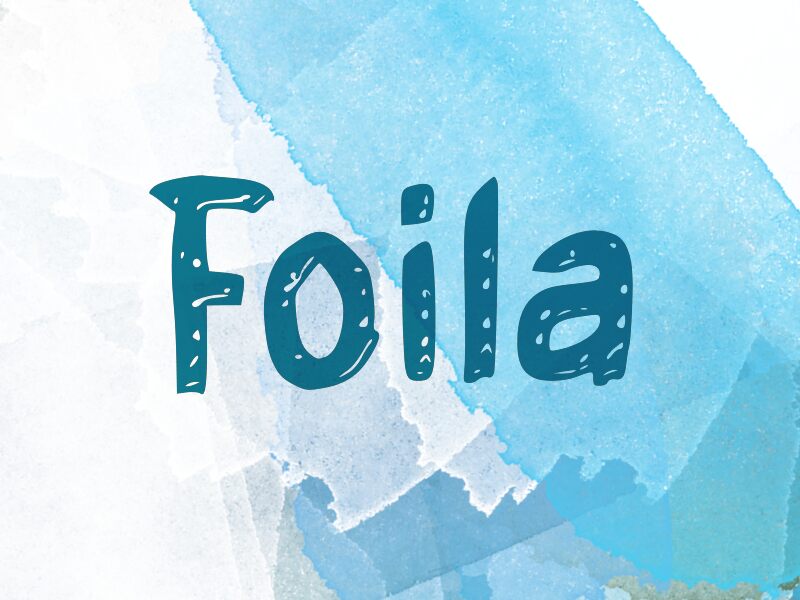
Foila
Foila, designed by wep, is a display font that exudes playfulness and creativity. Its handcrafted aesthetic is characterized by irregular, whimsical shapes and the illusion of ink splatters that evoke a sense of artistic spontaneity. This quirky font stands out with its bold strokes and distinctive character forms that seem to dance on the page, adding a touch of personality to any project.
Ideal for eye-catching headlines, Foila lends itself well to design projects that require a fun and informal tone. It's particularly suited for posters, children's books, casual branding efforts, or any medium looking for an injection of lighthearted charm. Its unique style ensures that messaging not only captures attention but also remains memorable in the minds of viewers.